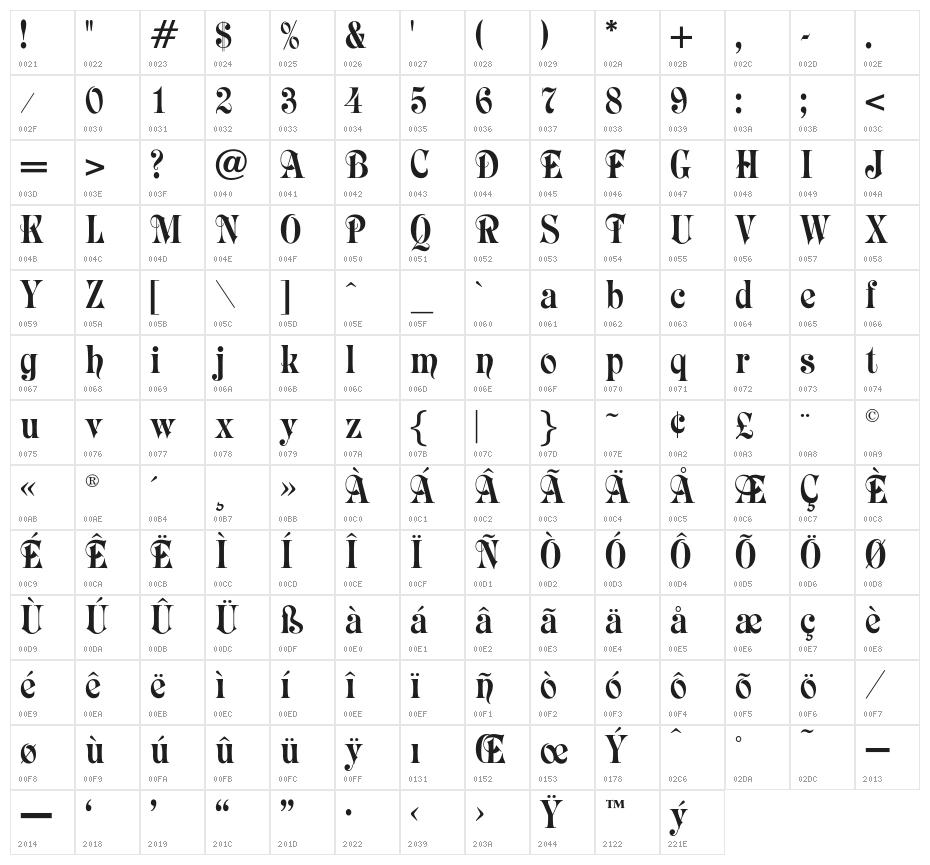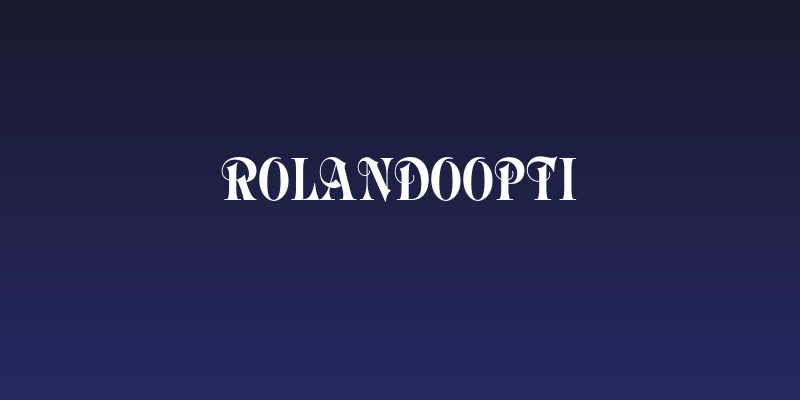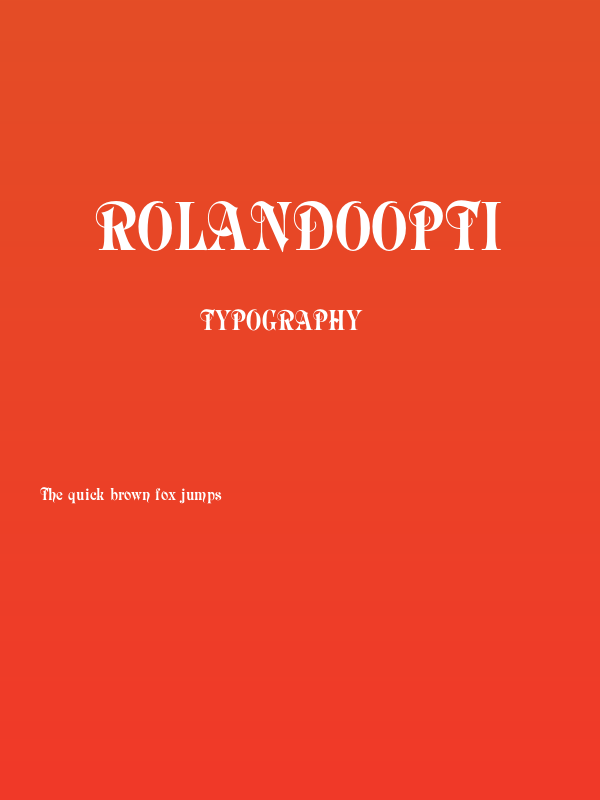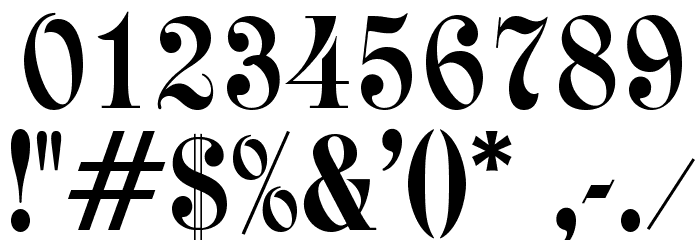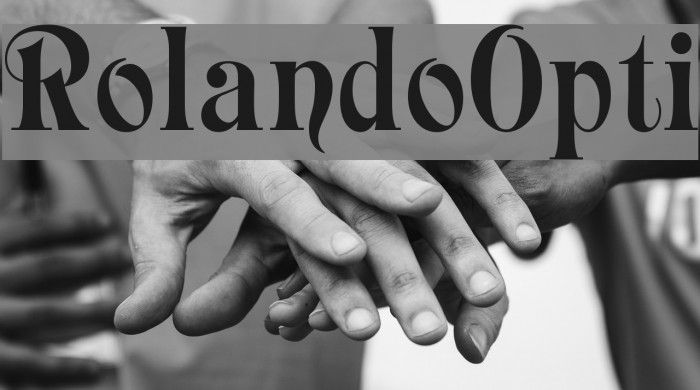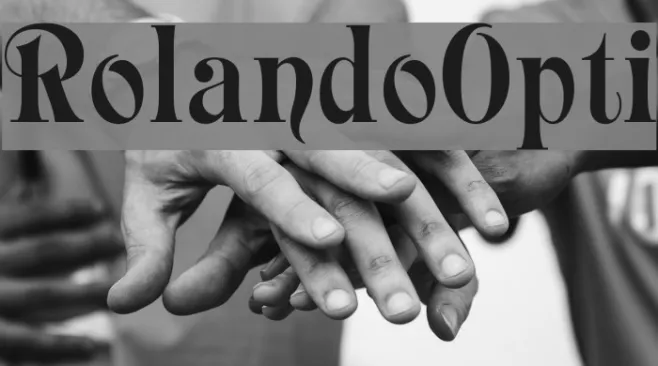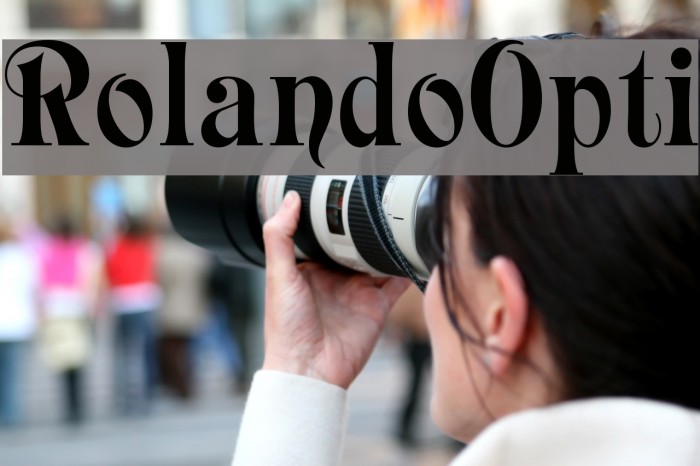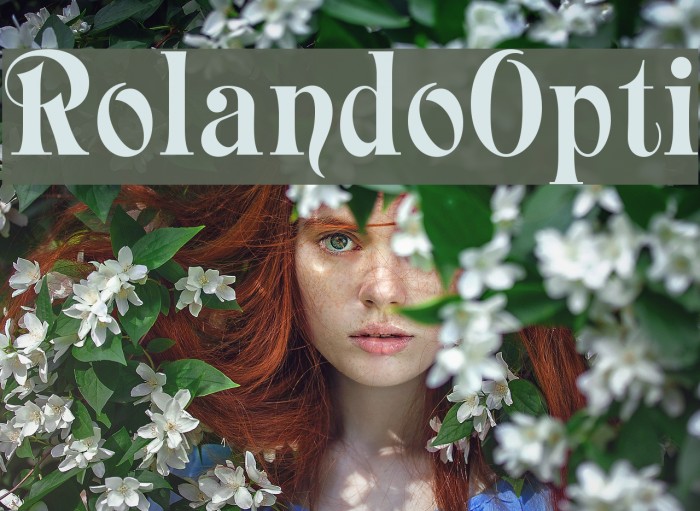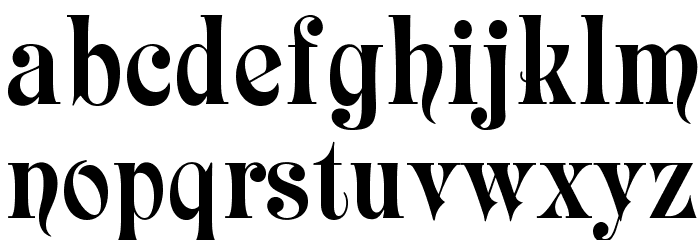
RolandoOpti Font
RolandoOpti Description
This font features a unique and artistic design with a blend of modern and vintage elements. The uppercase letters exhibit a bold, decorative style with intricate curves and flourishes, giving them a distinctive and elegant appearance. The lowercase letters maintain a similar aesthetic, with a slightly more subdued flair, ensuring readability while retaining the font's artistic charm. The numerals are bold and consistent with the overall style, featuring subtle curves that add to their visual appeal. Special characters are creatively designed, complementing the font's overall theme. This font is perfect for projects that require a touch of sophistication and creativity.
| Proposed Projects | Ideal for branding, logo design, invitations, posters, and any project that requires an artistic and sophisticated touch. |